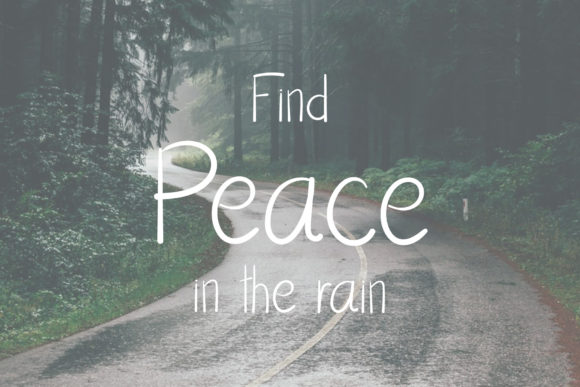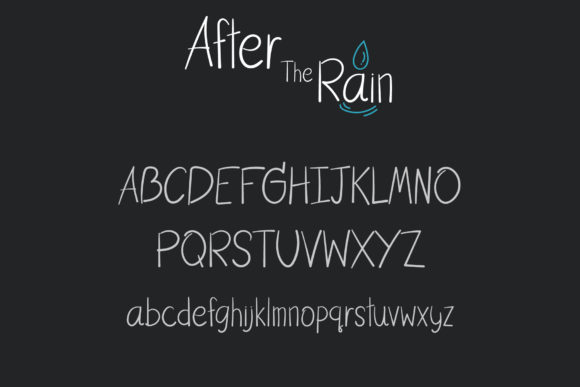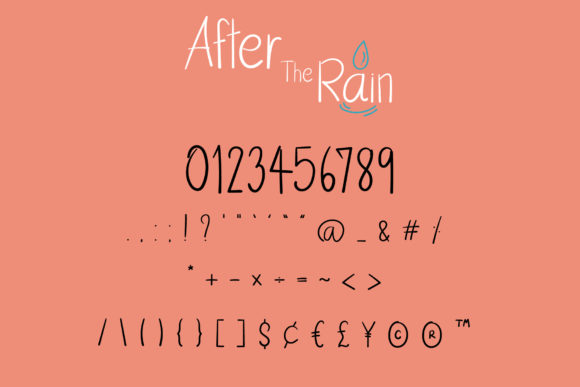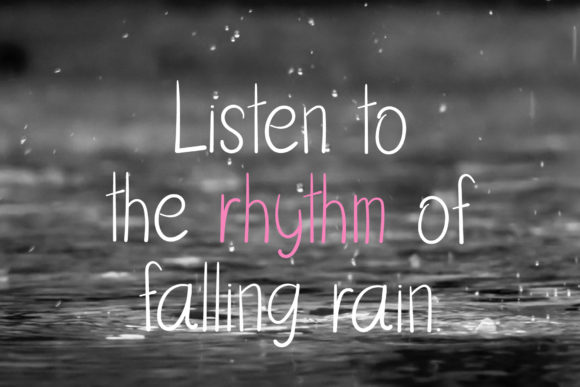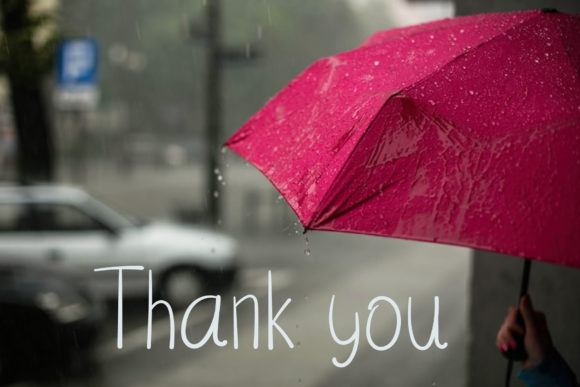
After the Rain Font
About After the Rain Font
After the Rain is a cute and casual handwritten font with an incredibly friendly feel. Whether you’re looking for fonts for Instagram or calligraphy scripts for DIY projects, this font will turn any creative idea into a true piece of art!